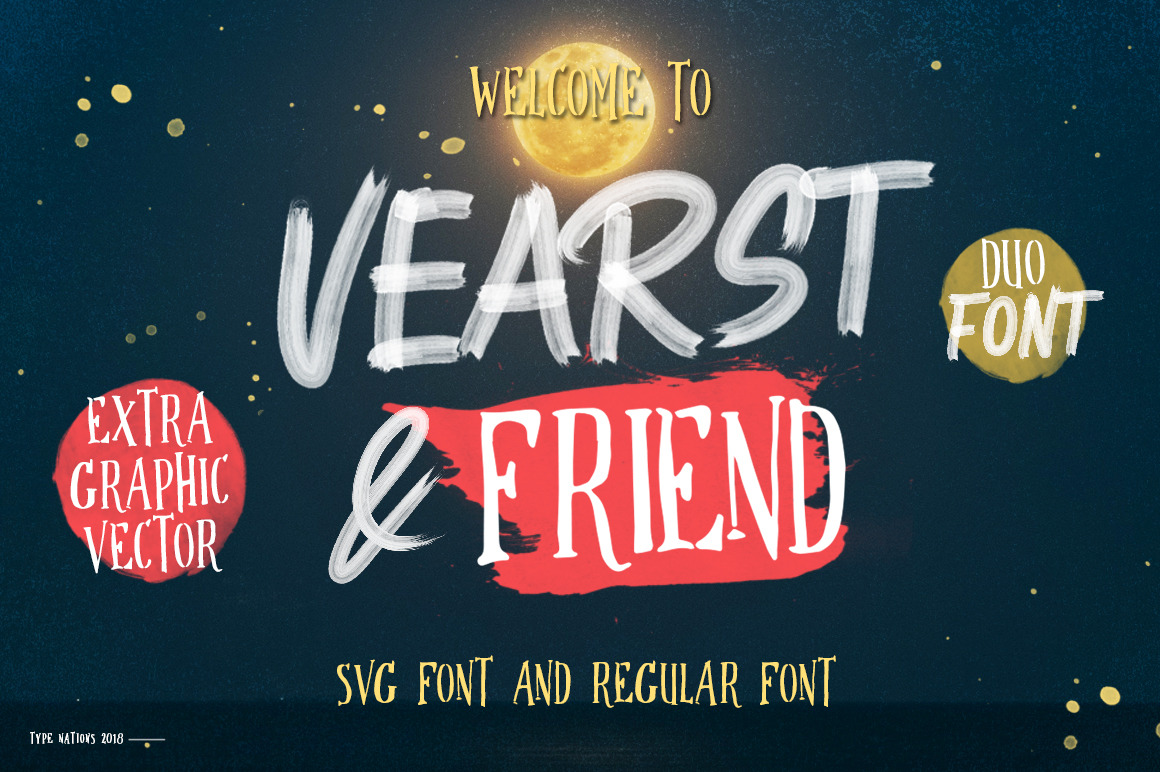
Vearst & friend SVG FONT & REGULAR
It's time to make something new in this century !! Vearst and friend is complete package font duo handpainted brush font (OpenType-SVG) and Serif font. Vearst and Friend is my first which makes use of this new technology, by using high resolution brush stroke images with incredible definition. with this new technology you don't need to spend hours creating your own hand-painted letter. Just type Vearst & Friend right onto your project and you will look like a pro with their secret project.
Vearst & Friend is very best choice fonts for : Hypebeast style, Branding, quotes, Posters, Apparel design, Logos, Print Ads, Digital Ads, Magazine and much more !
- Character set A-Z with special uppercase letters
- Stylistic Alternates And Ligatures